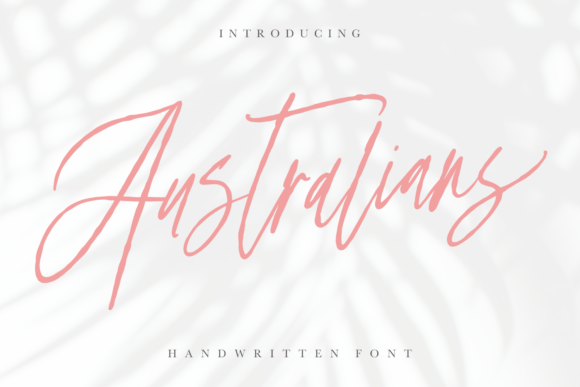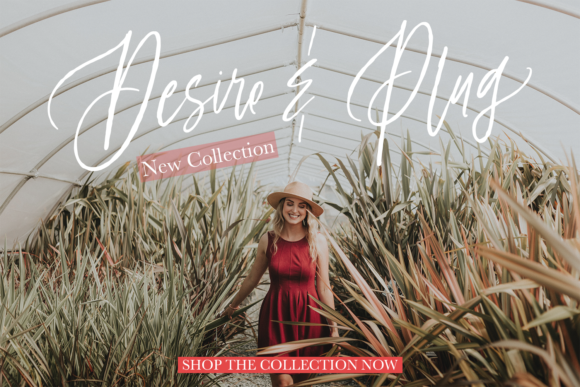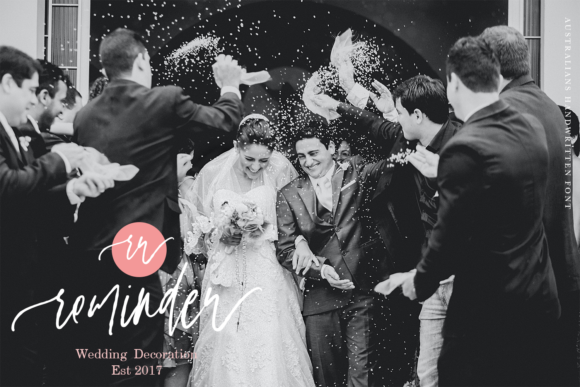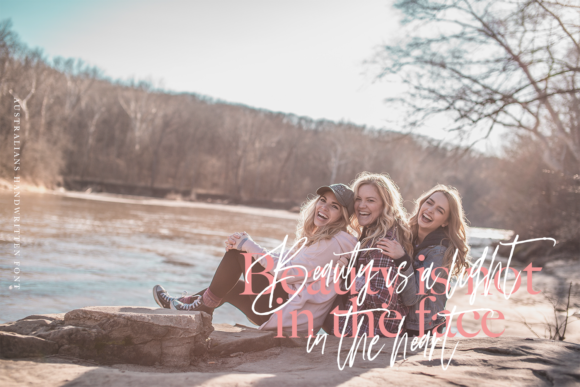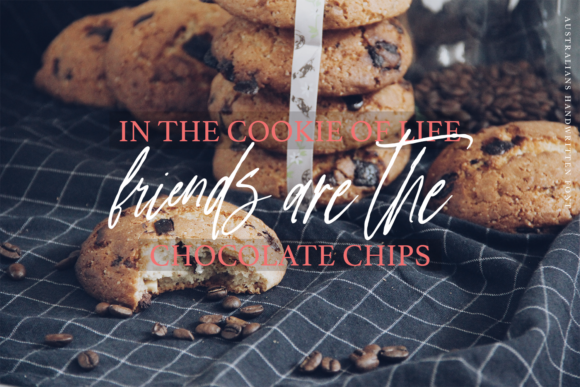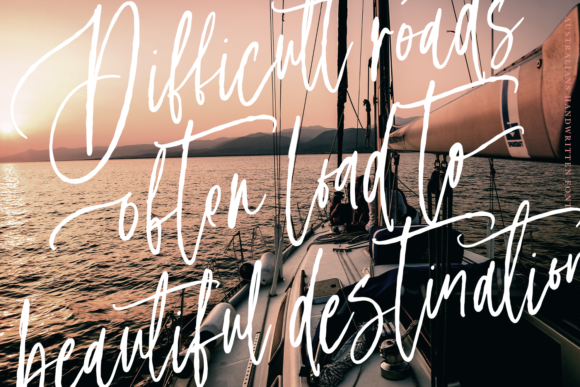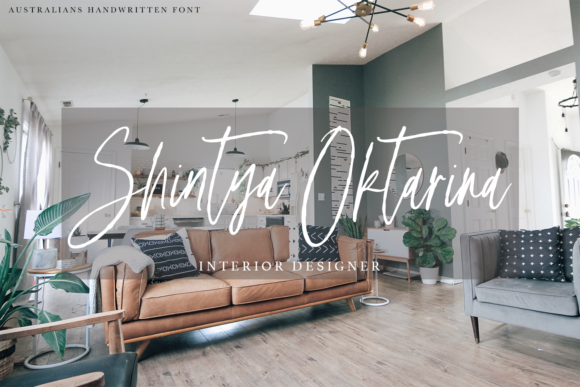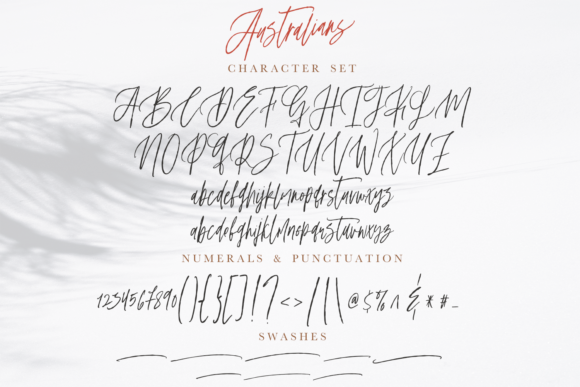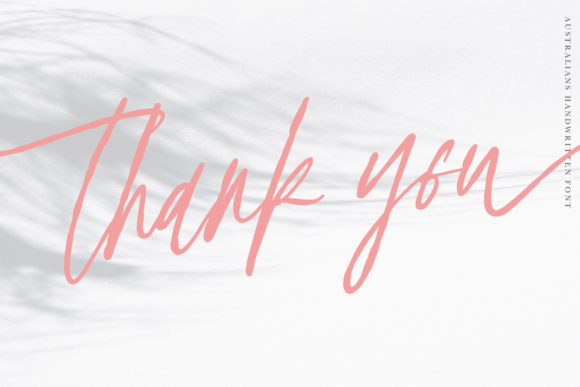
Australians Font
About Australians Font
Australians is a relaxed and original handwritten font. Timeless and unique, this font will make each of your creations come alive in such beautiful ways!